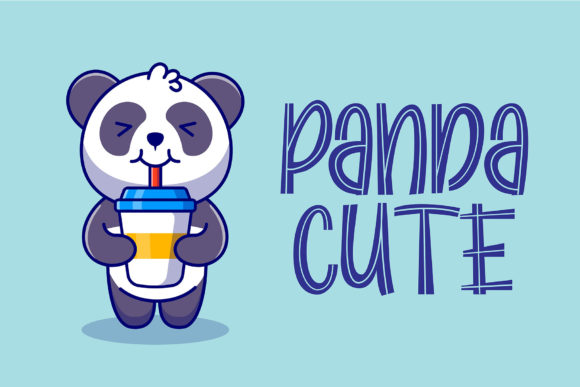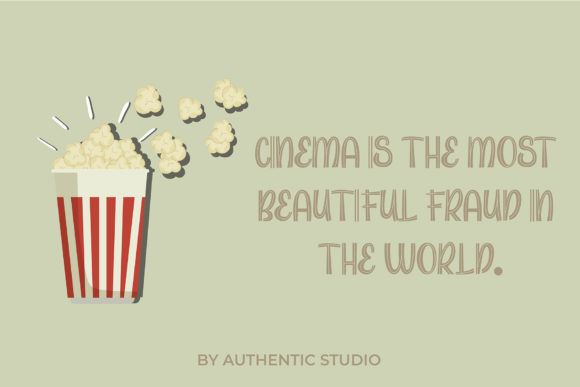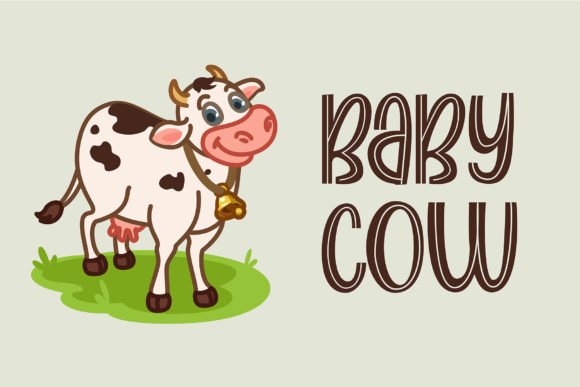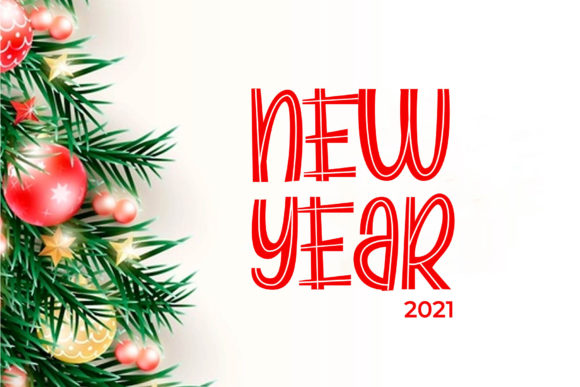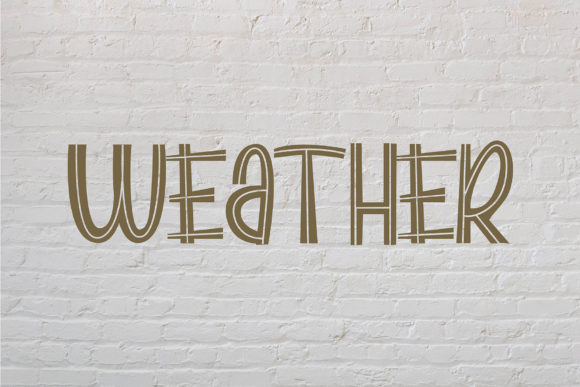
Introduction to Farmhome Font
Do you remember the thrill of finding the perfect font for your latest creative project? It’s like stumbling upon a hidden treasure, isn’t it? The right font can elevate your design from ordinary to extraordinary, and that’s exactly what the Farmhome Font does. With its fun and friendly vibe, this display font is perfect for a wide range of applications, from Christmas cards to wedding designs, and even local signs and branding.
| 👤 Author | Authentic Studio |
Key Features of Farmhome Font
- High-quality design resource ideal for creative projects, including logos, branding, and more.
- Unique, hand-drawn design elements and illustrations that evoke a sense of rural charm and simplicity.
- Perfect for use in a variety of creative projects, from wedding invitations to farm-themed decor.
Honest Review: Farmhome Font
I recently stumbled upon the Farmhome Font, a design resource that caught my attention for its unique, rustic vibe. As a designer, I appreciate high-quality fonts that can elevate my creative projects and add a personal touch.
One of the things I like about Farmhome Font is its versatility ✨. It comes in a range of styles, from casual to elegant, making it suitable for various design needs. The font is also available for free download, which is a huge plus for designers on a budget.
- Perfect for creative projects, such as branding and advertising
However, I do have a few concerns ⚠️. The font may not be suitable for all design projects, as its rustic vibe may not appeal to everyone. Additionally, the font’s compatibility with certain software may be limited.
Overall, I’m impressed with the Farmhome Font’s unique design and versatility. While it may not be perfect for every project, it’s definitely a valuable addition to any designer’s toolkit. With a little creativity, this font can add a personal touch to your design projects and help you stand out from the crowd.
Farmhome Font is commonly used in graphic design, digital art, and creative projects that require a rustic and country-inspired feel. It’s also a great choice for logos, branding, and marketing materials that need a high-quality and unique font.